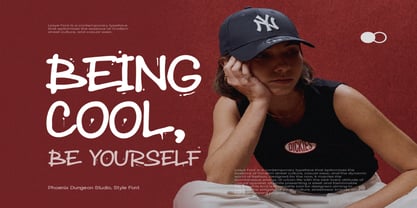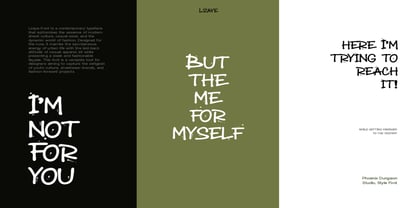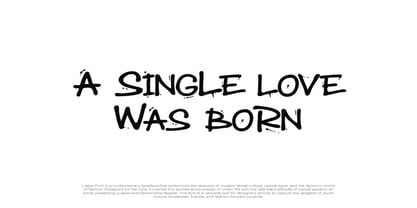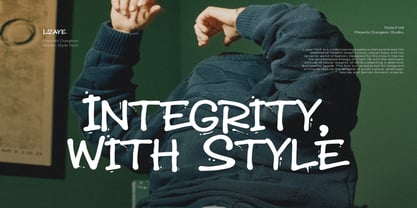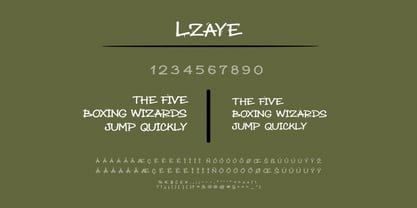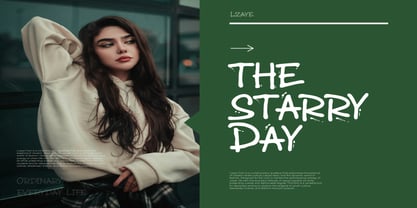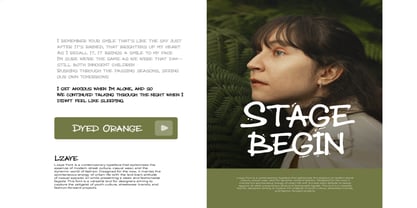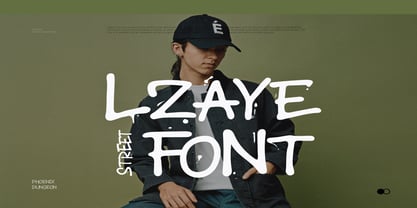
Lzaye
by Phoenix Group
The Lzaye Font Family was designed by Alif Naufal Muzakki and published by Phoenix Group. Lzaye contains 1 styles.
Lzaye Street Font is a bold and stylish handwritten display typeface inspired by urban graffiti and streetwear culture. With its playful strokes, casual vibe, and modern edge, this font is perfect for posters, branding, album covers, apparel, and digital projects. Its expressive design brings energy and personality, making it a versatile choice for designers who want to capture an authentic street-style aesthetic.
Designers: Alif Naufal Muzakki
Publisher: Phoenix Group
Foundry: Phoenix Group
Design Owner: Phoenix Group